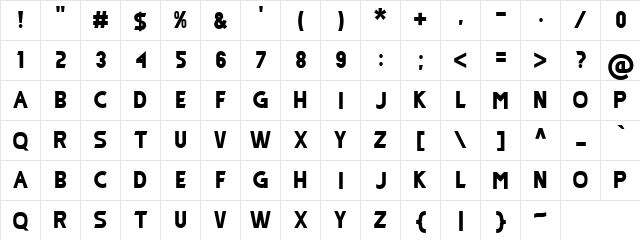
Monorealis Regular
Design Context for Monorealis Typeface
Monorealis uses fixed-width spacing throughout, giving it the structured, systematic character associated with coding environments and technical documentation.
Pro Tip: Pair Monorealis with a proportional sans for UI contexts where code-style labels and regular body copy need to coexist.